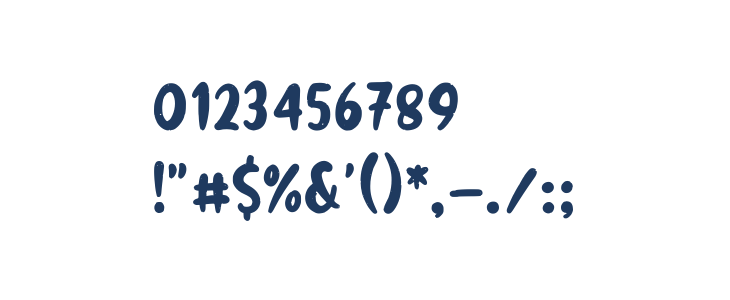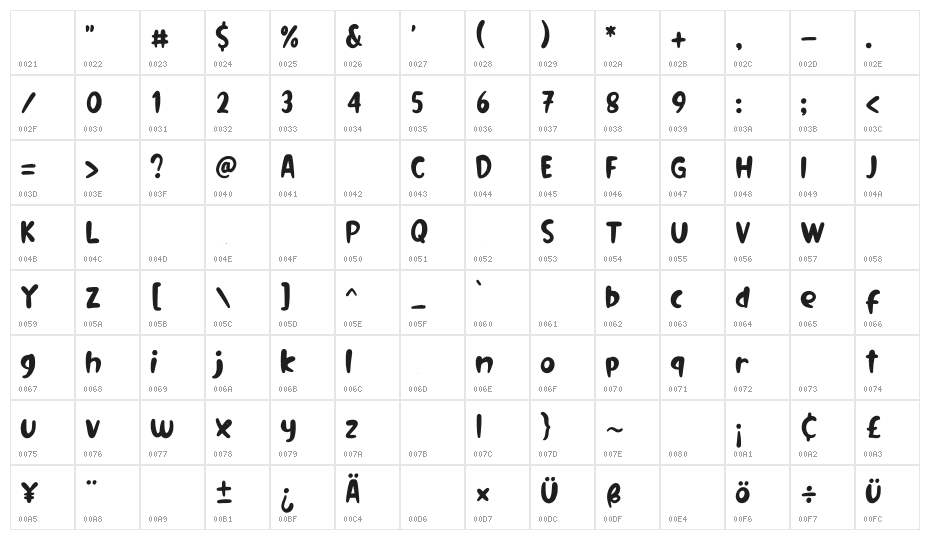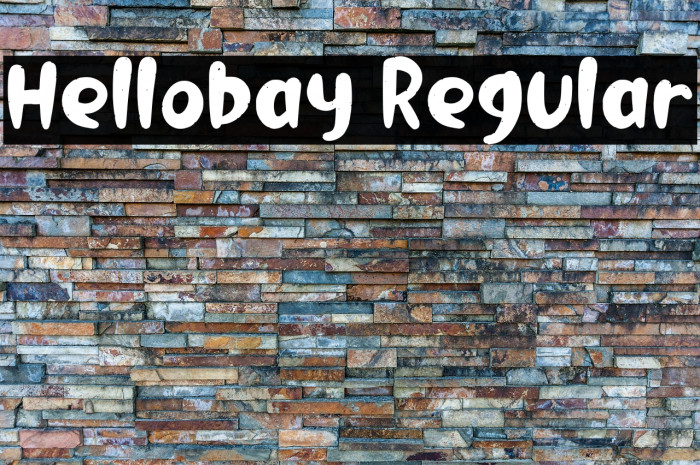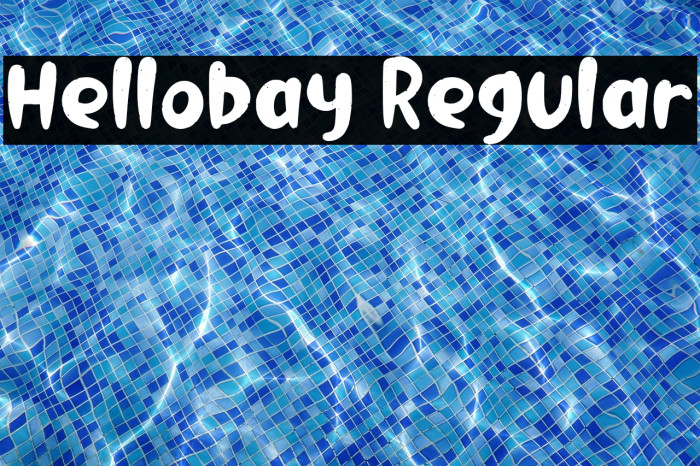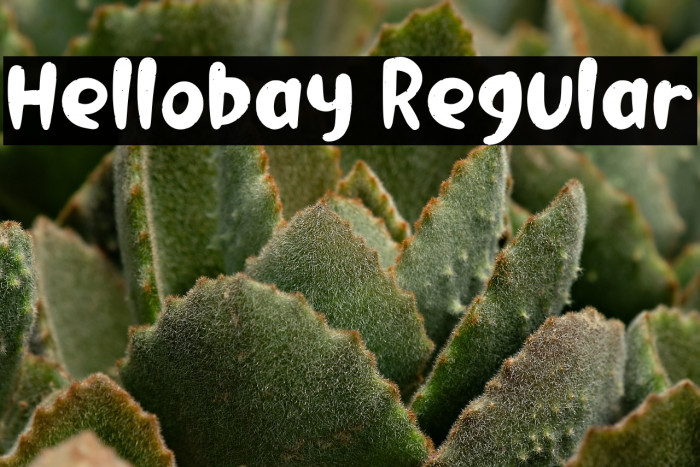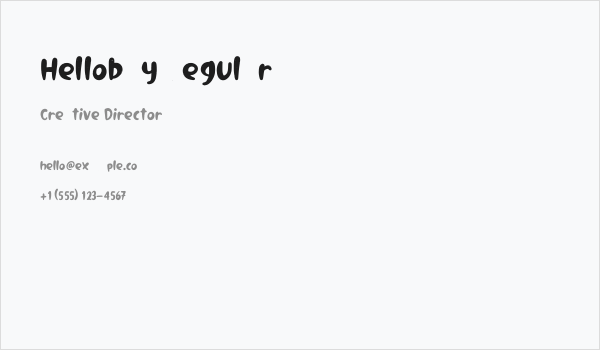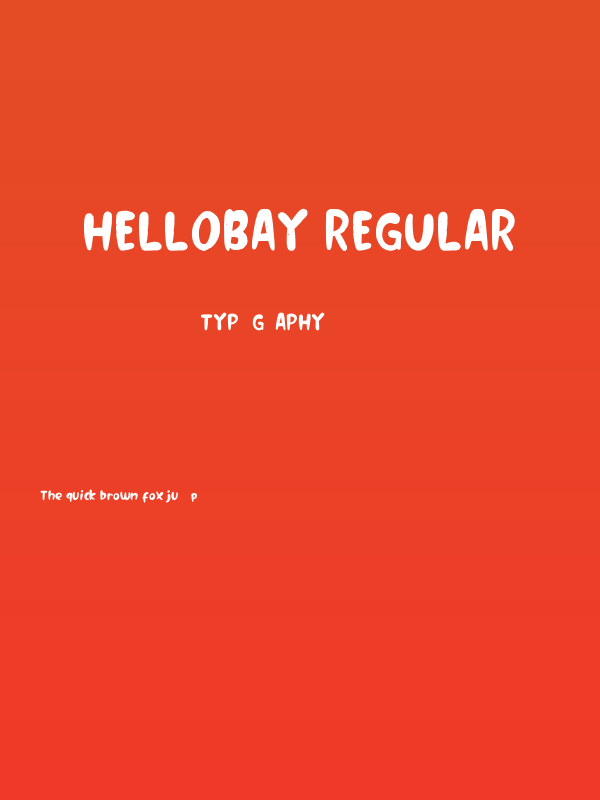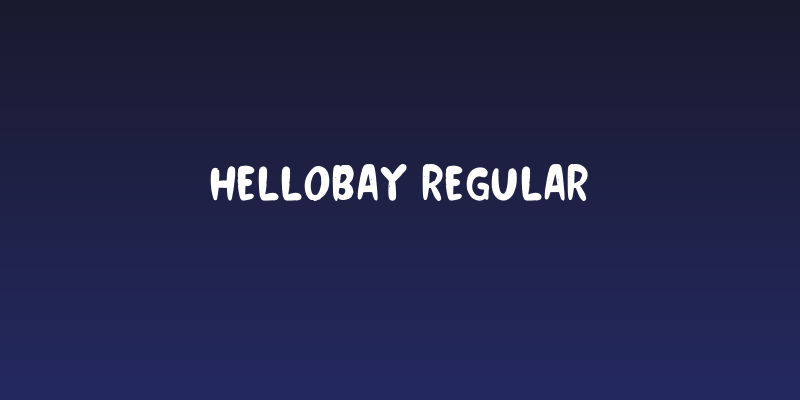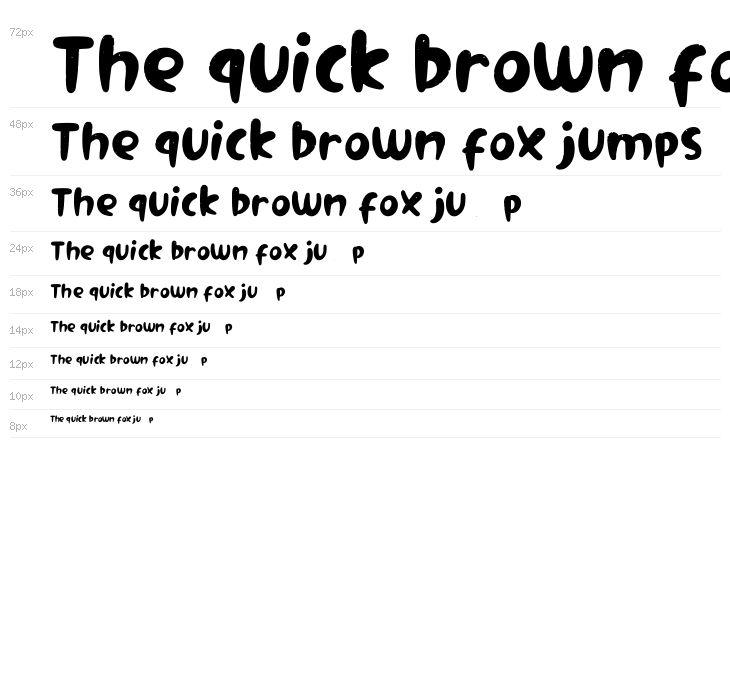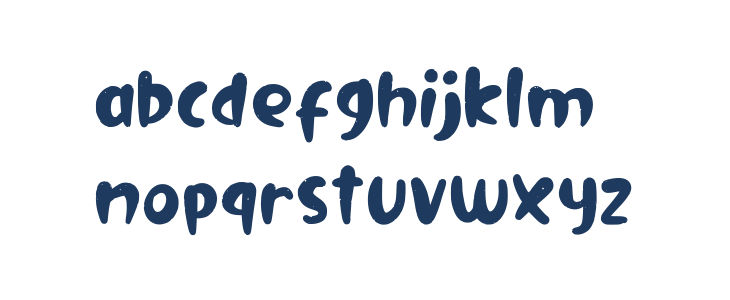
Hellobay Regular Font
Hellobay Regular Description
This font features a playful and bold handwritten style, characterized by its thick, rounded strokes and slightly irregular shapes. The letters have a casual and friendly appearance, making them ideal for projects that require a personal touch. The uppercase and lowercase letters maintain a consistent style, with a noticeable emphasis on rounded edges and a slightly uneven baseline, adding to the font's charm. The numerals and special characters are designed to match the overall aesthetic, ensuring a cohesive look across all text elements. This font's unique style makes it suitable for a variety of creative applications.
| Overall Style | Playful |
| Use Case | Logos, Headlines, Posters |
| Proposed Projects | Ideal for greeting cards, children's books, playful branding, and social media graphics. |